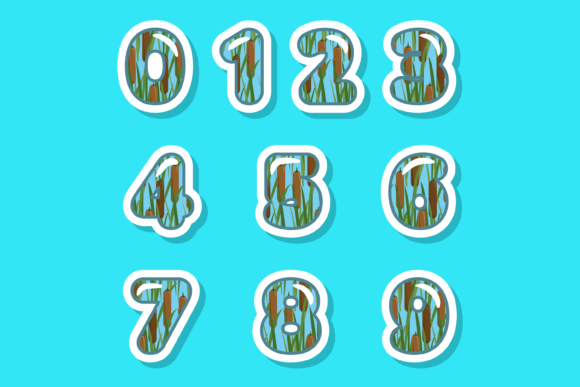
About Cattail Font
Cattail is an incredibly cool and fun color font that will add a touch of whimsy to your designs. With its playful style and vibrant colors, it’s perfect for a variety of creative projects. Whether you’re designing custom artwork, crafting DIY projects, or creating eye-catching social media graphics, Cattail will bring a unique and charming element to your creations.
This font is designed to be versatile and adaptable, allowing you to unleash your creativity and experiment with different design ideas. Its vibrant colors and fun elements make it an ideal choice for children’s designs, party invitations, greeting cards, and more. You can also use it to add a playful touch to branding materials, packaging, and merchandise.
So, if you’re looking for a font that will bring joy and excitement to your designs, Cattail is the perfect choice. Let your imagination run wild and create amazing designs with this cool and fun color font.